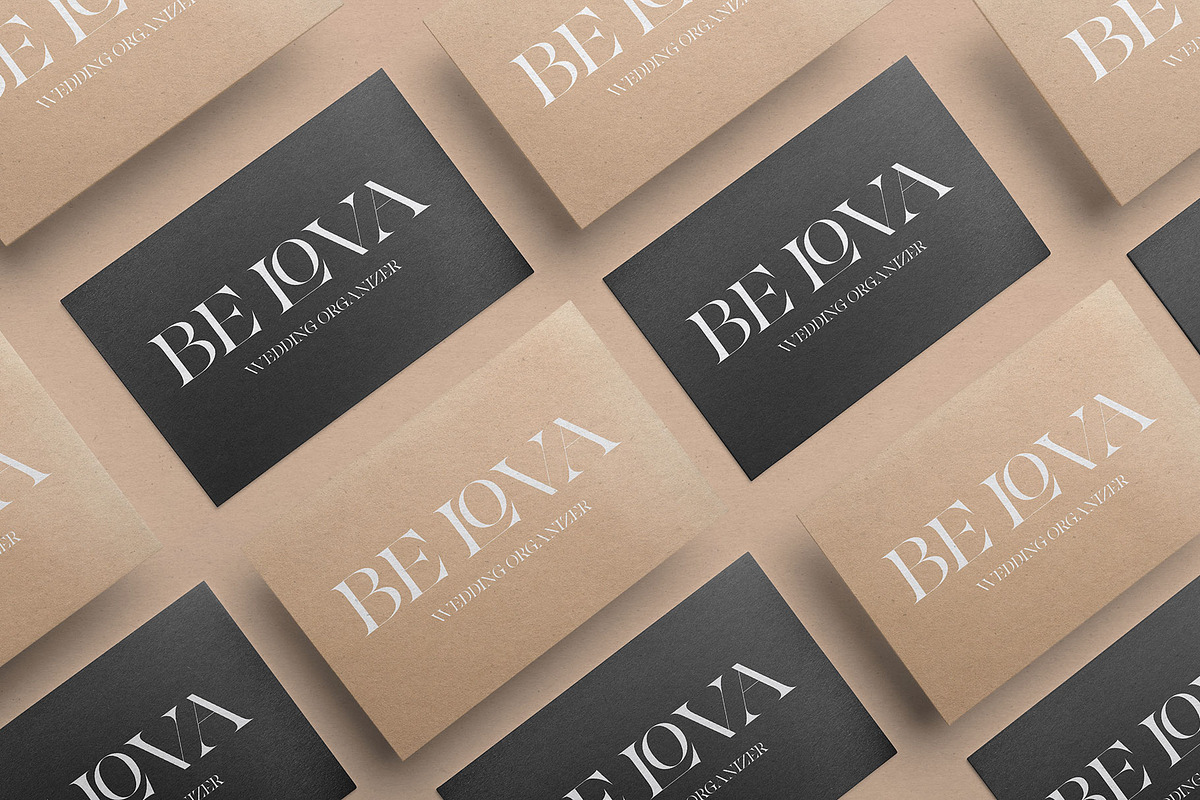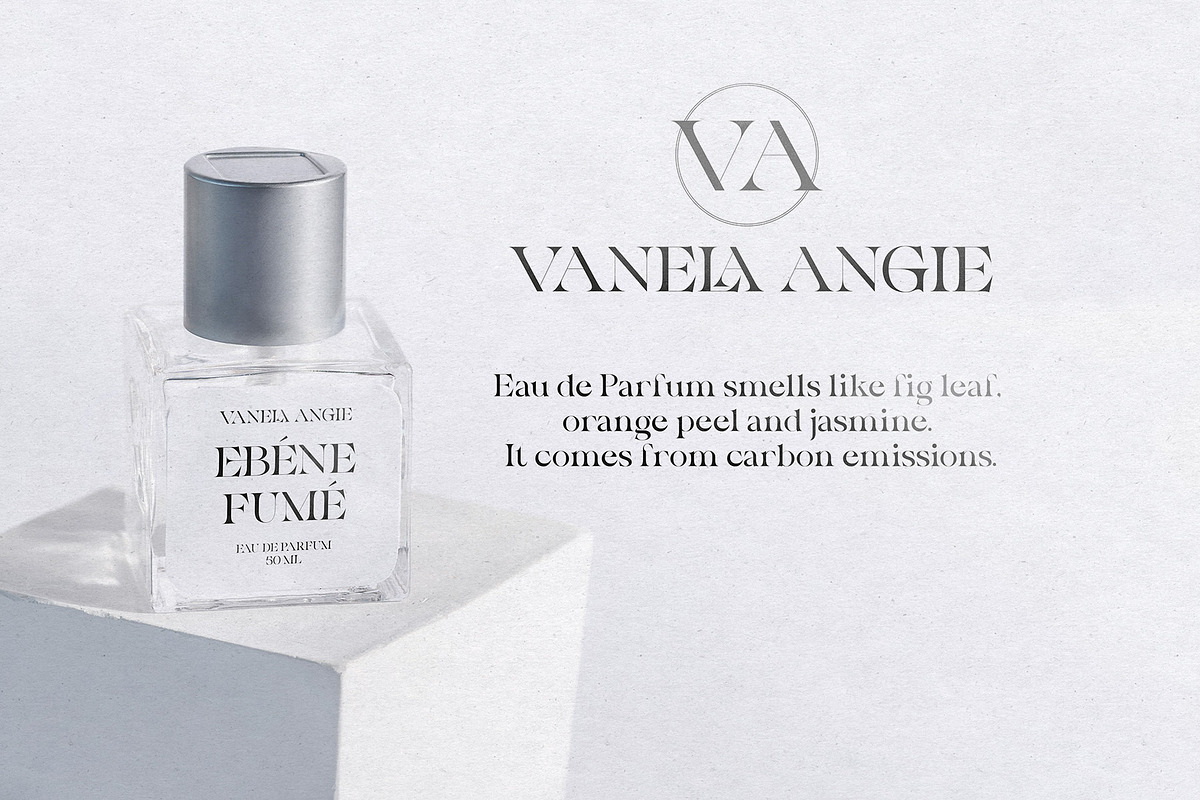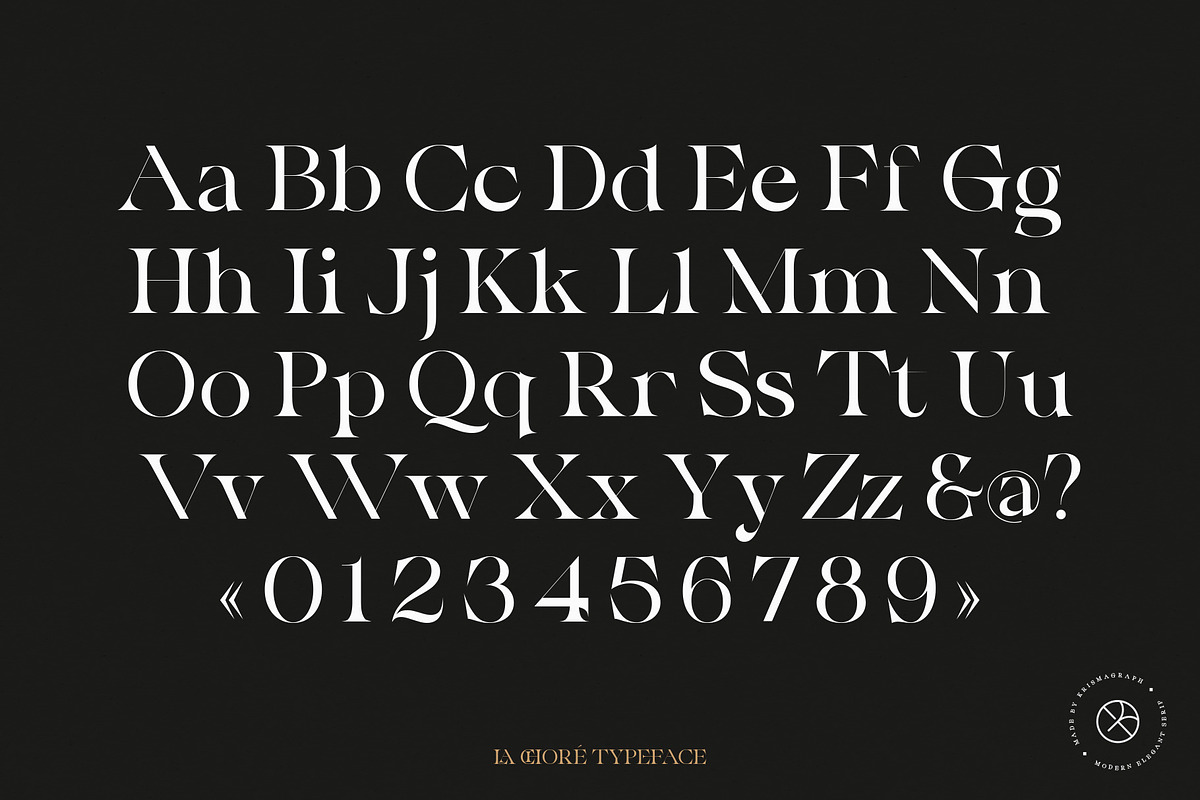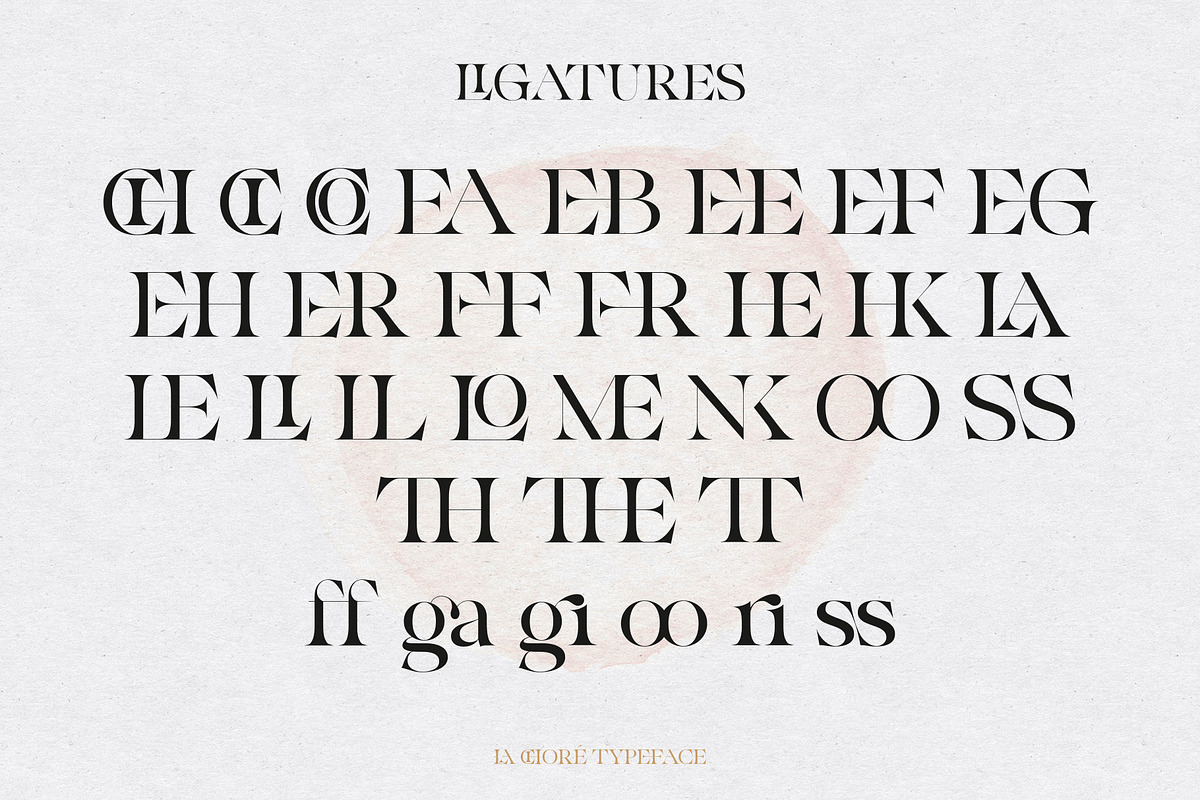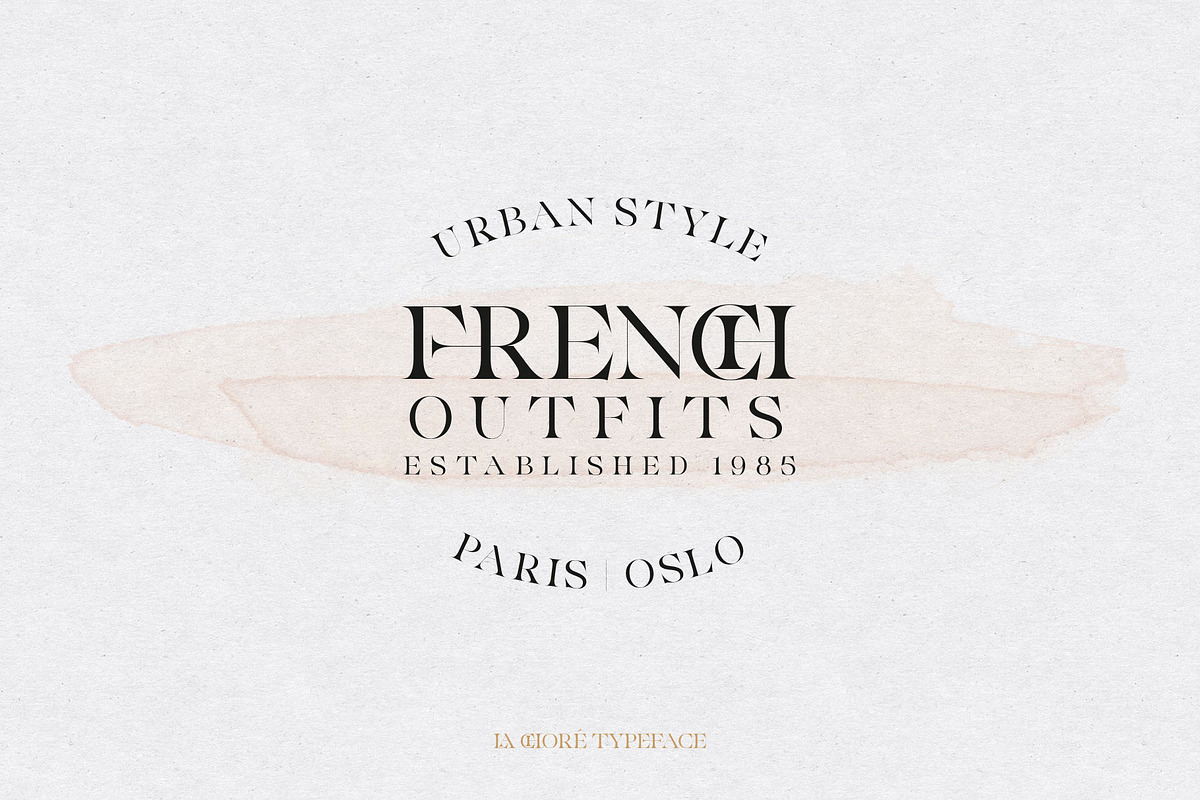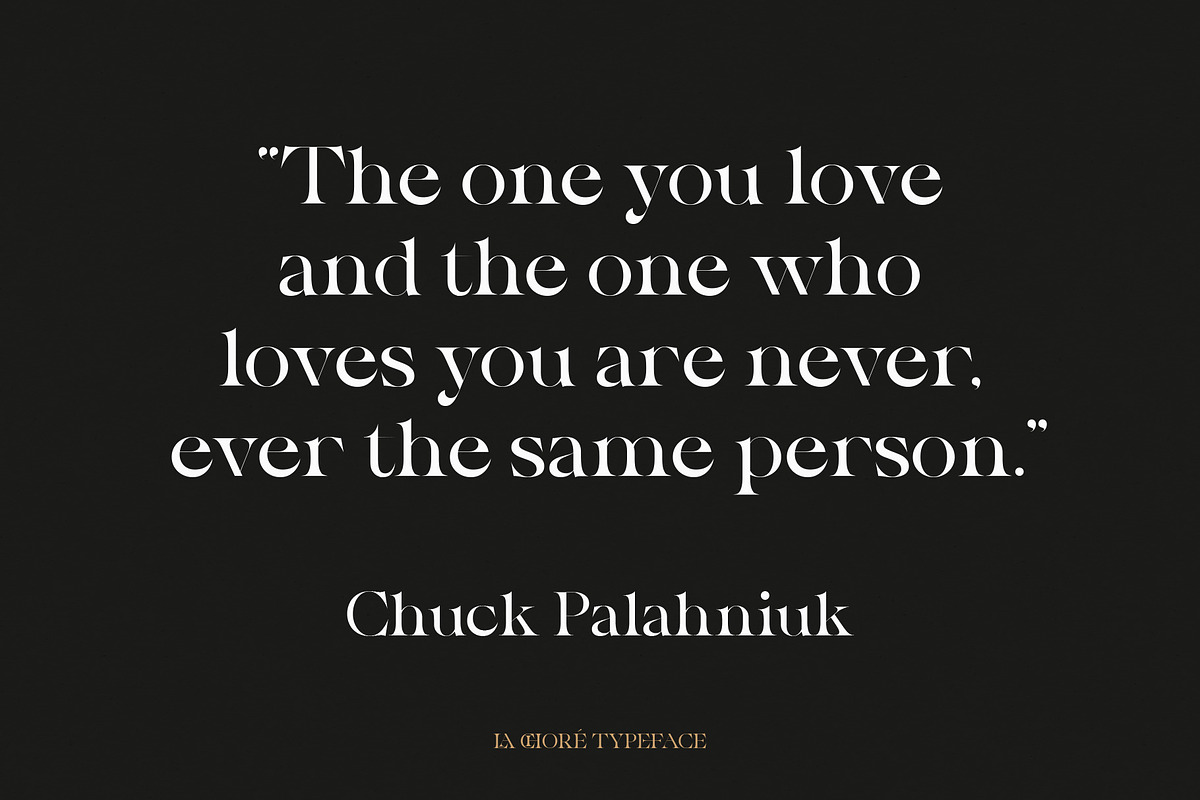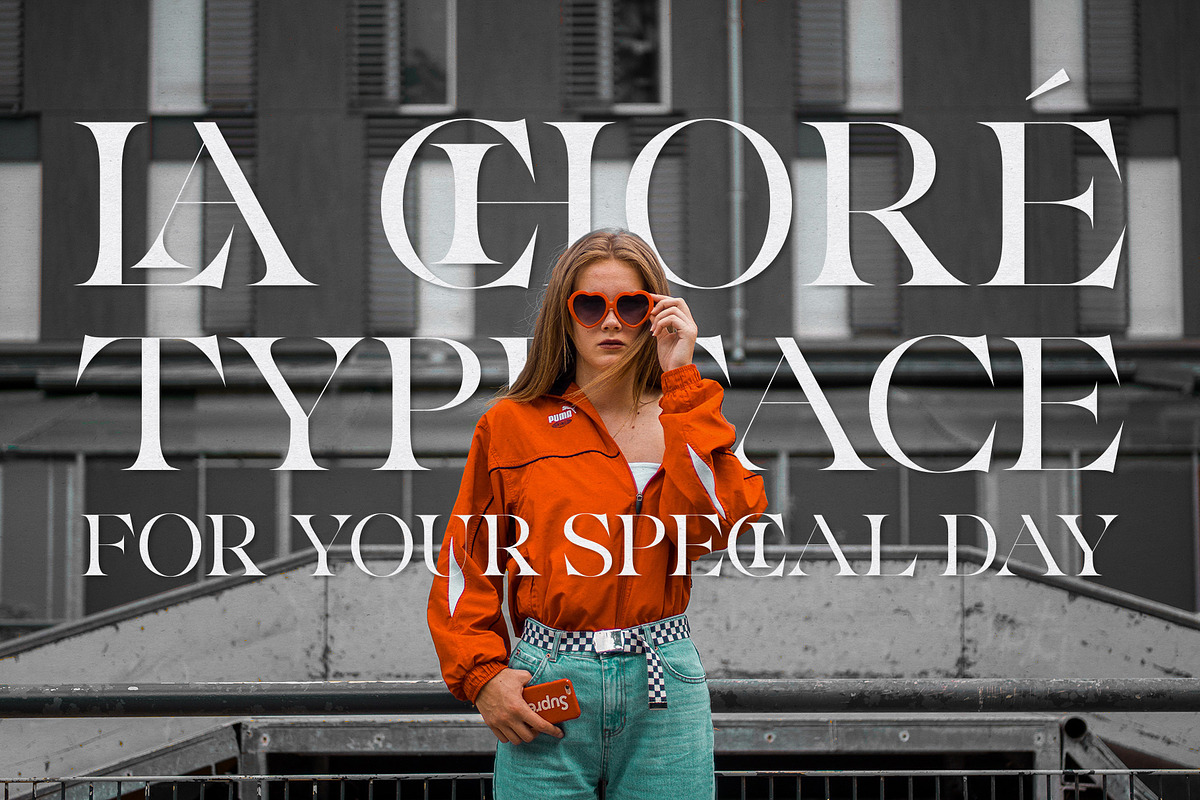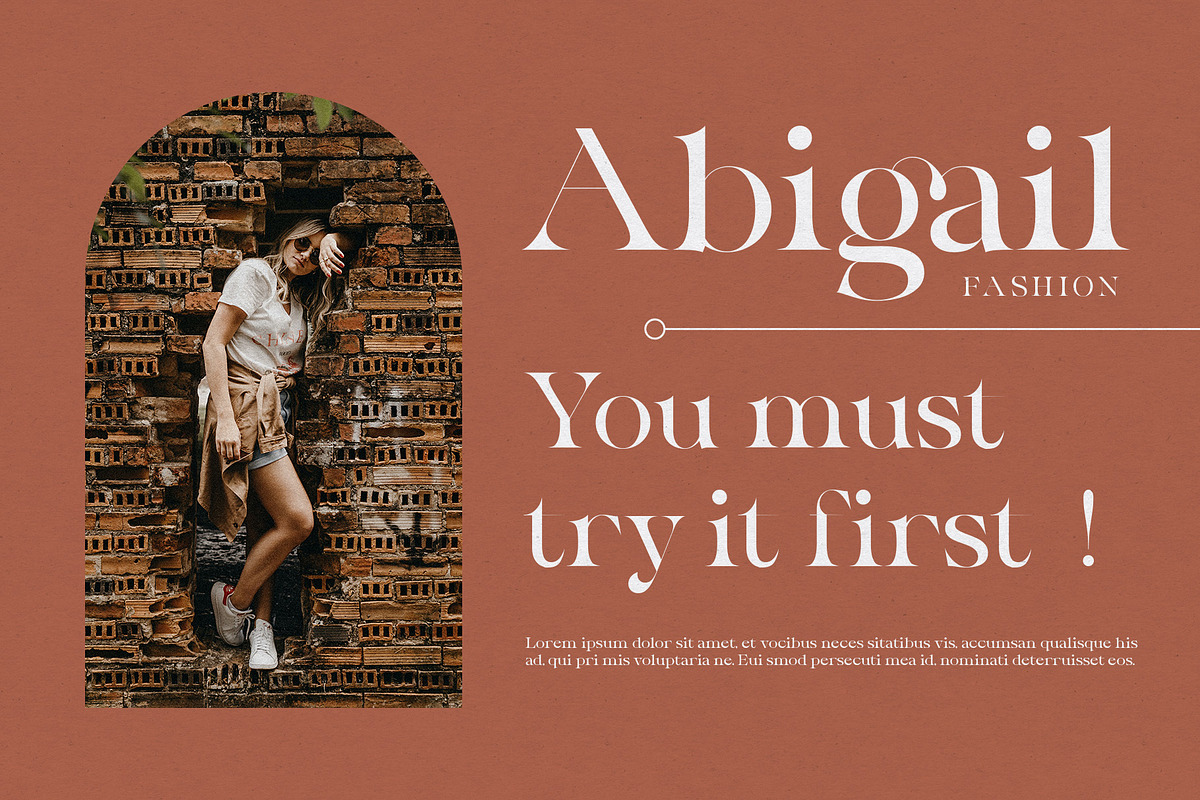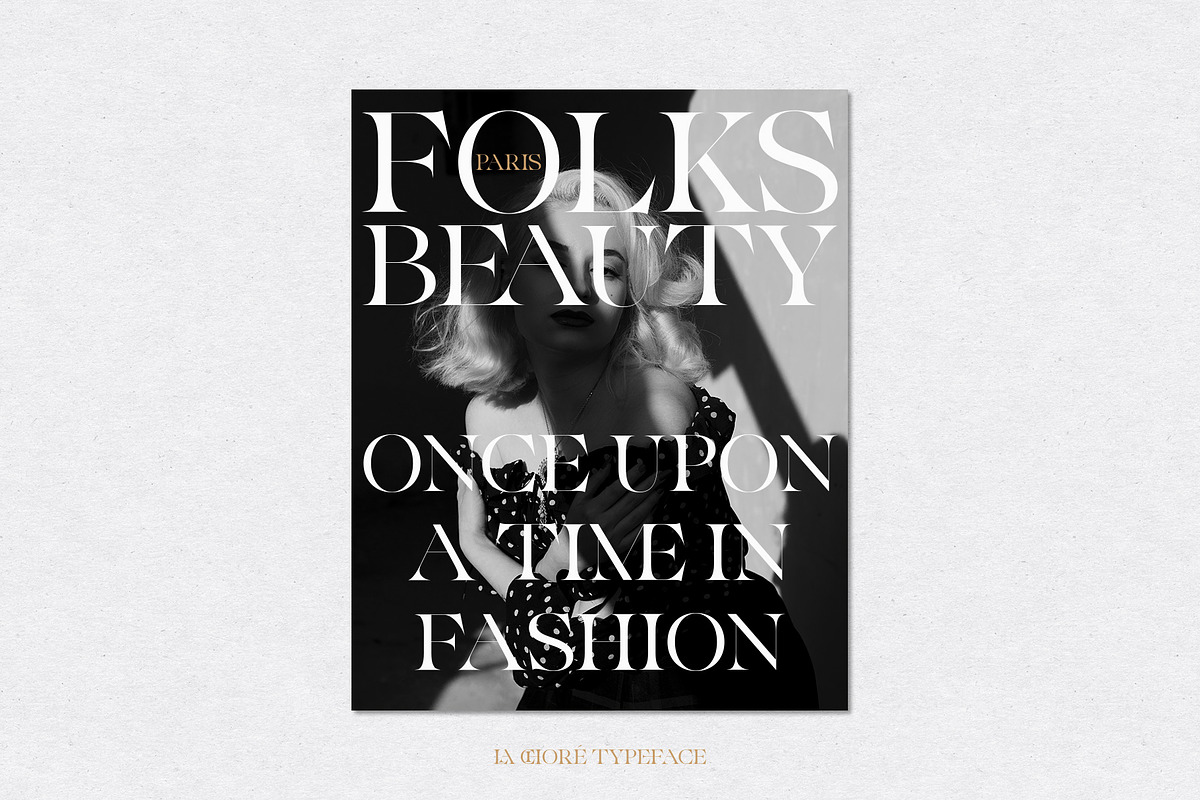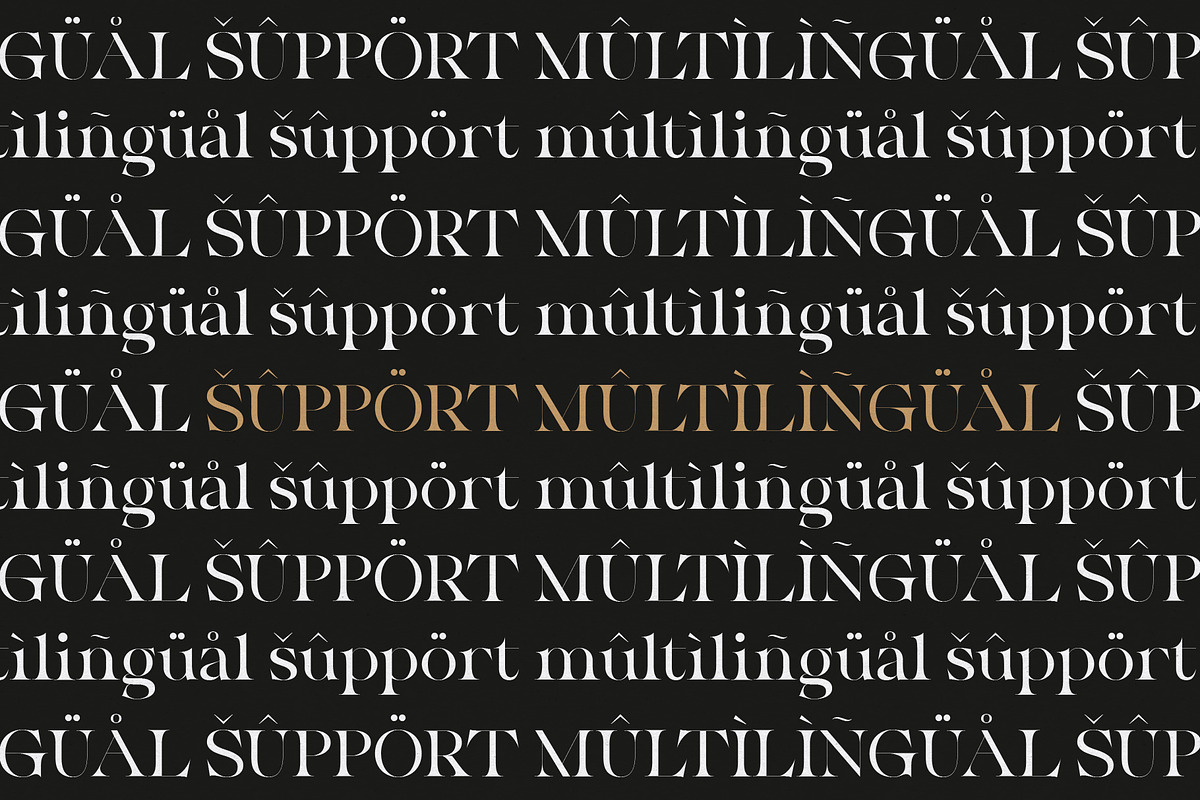
La Chore | Modern Elegant Serif
La Chore is a modern & elegant serif typeface with a high contrast version of the famous Didot look that has been synonymous with fashion for decades. This font has multiple ligatures with multilingual fonts included. This font is modern and nostalgic and is perfect for logos, masterheads, sharp displays, magazines, blog titles, wedding invitations, social media, prints and quotes.